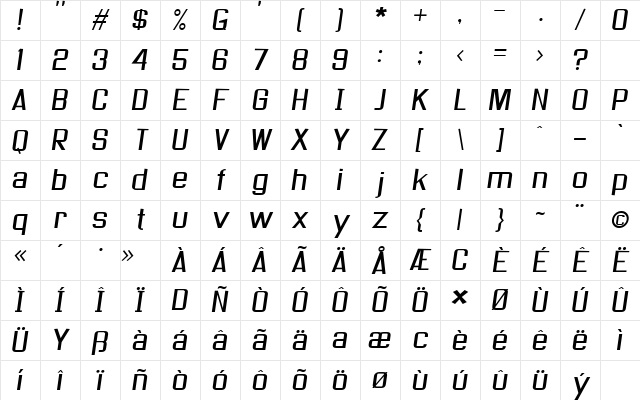
As seen on TV Skew Regular Free Font
As seen on TV Skew Regular
Design Context for As seen on TV Skew
As seen on TV Skew is a composed and adaptable typeface that performs quietly and consistently across a wide range of design contexts.
Pro Tip: Use As seen on TV Skew in both headline and body roles to test its range before committing to a single application.